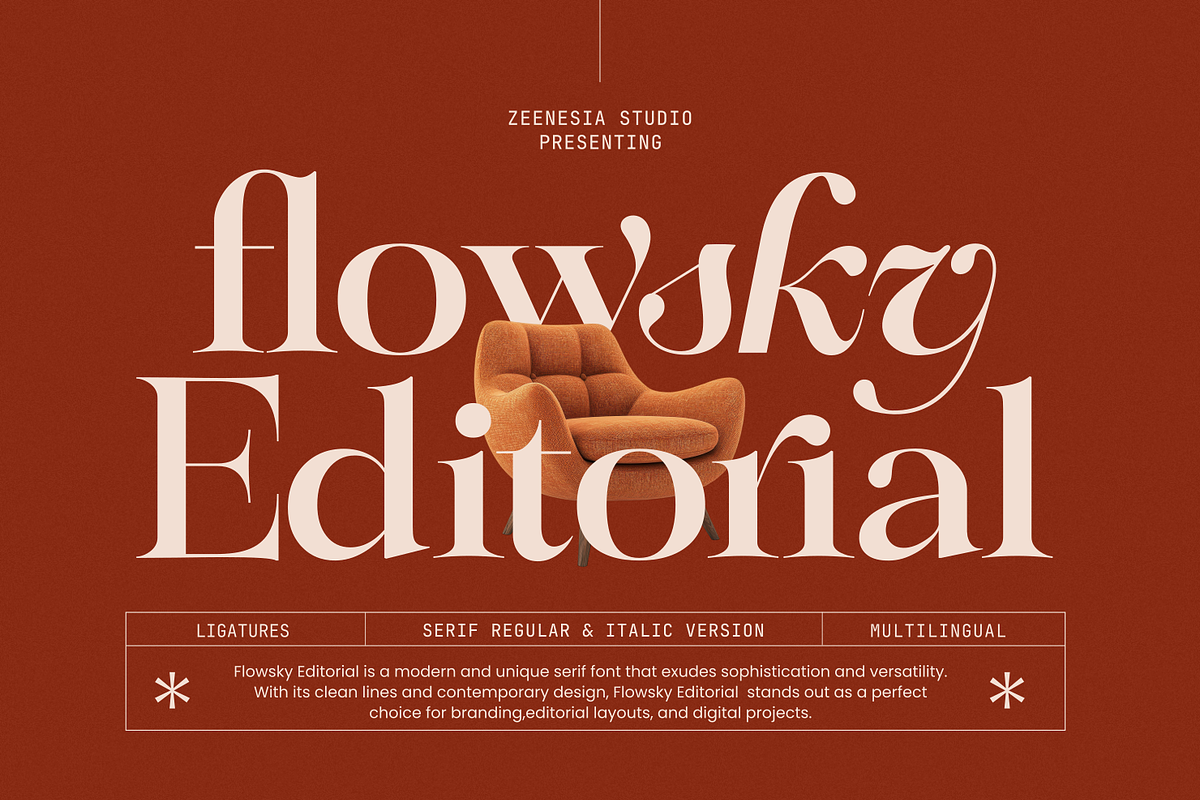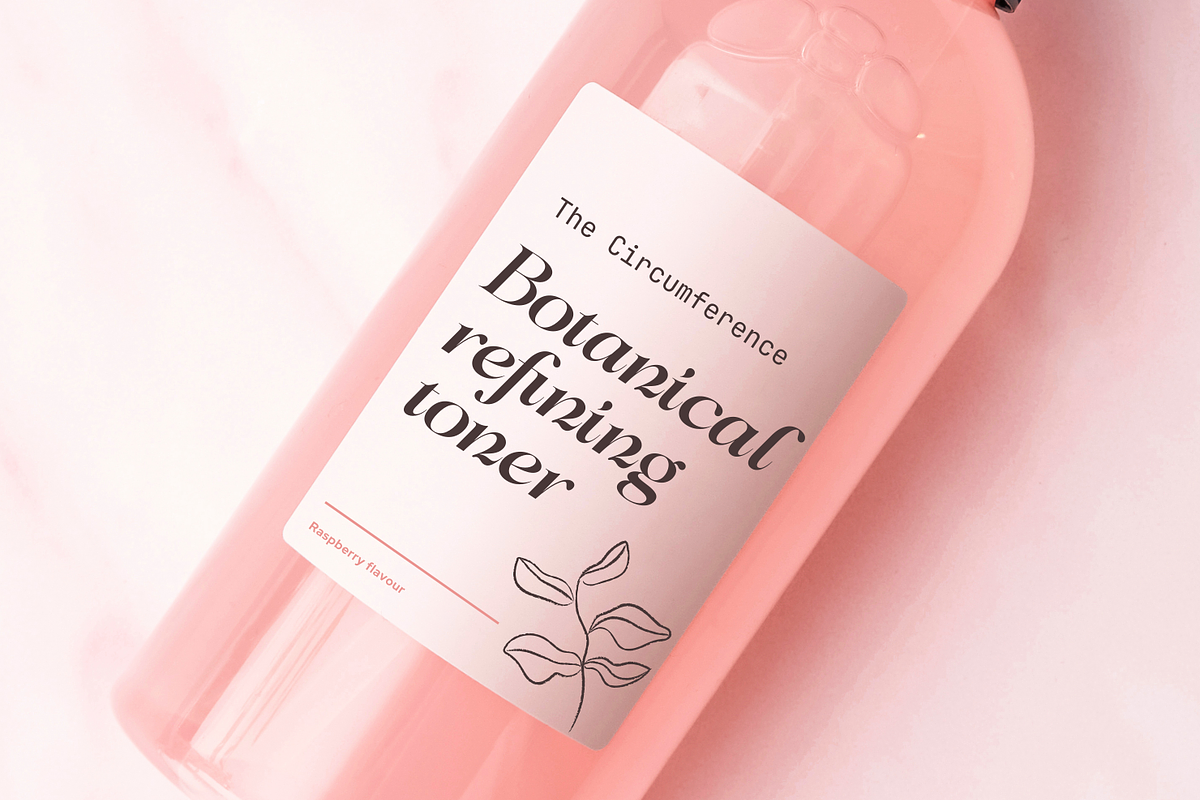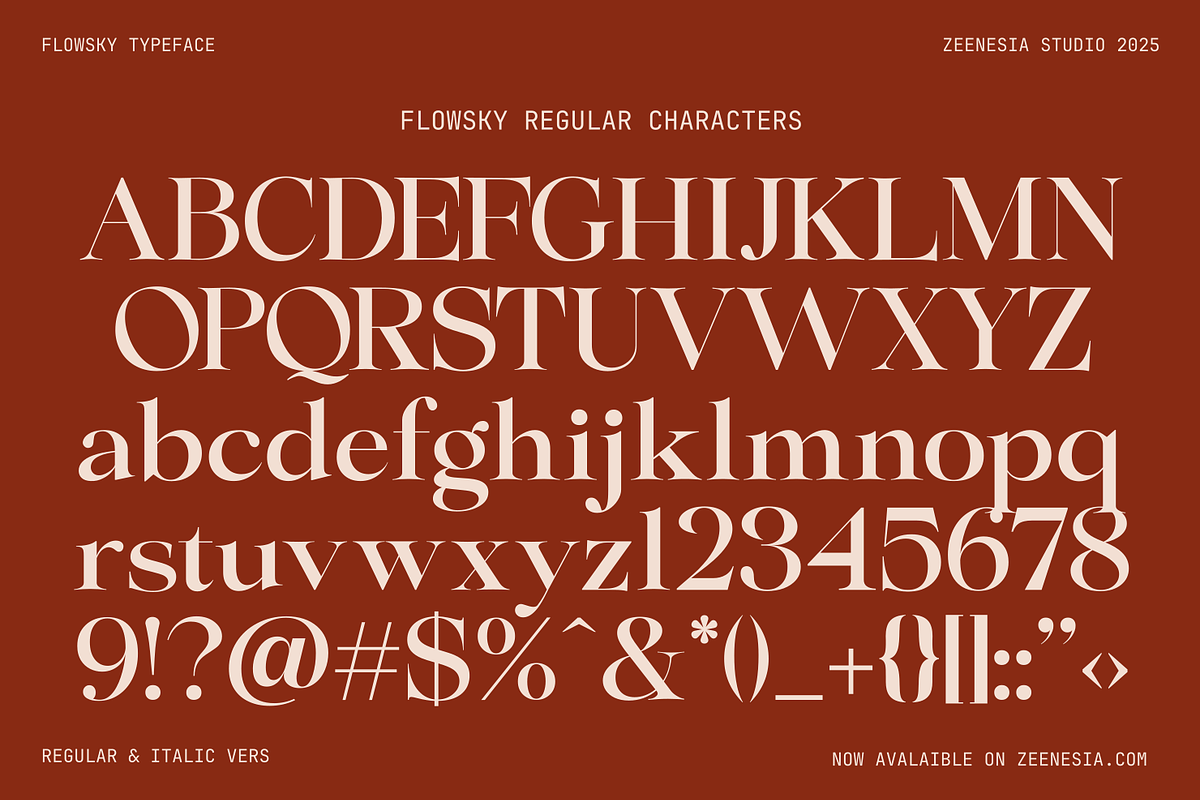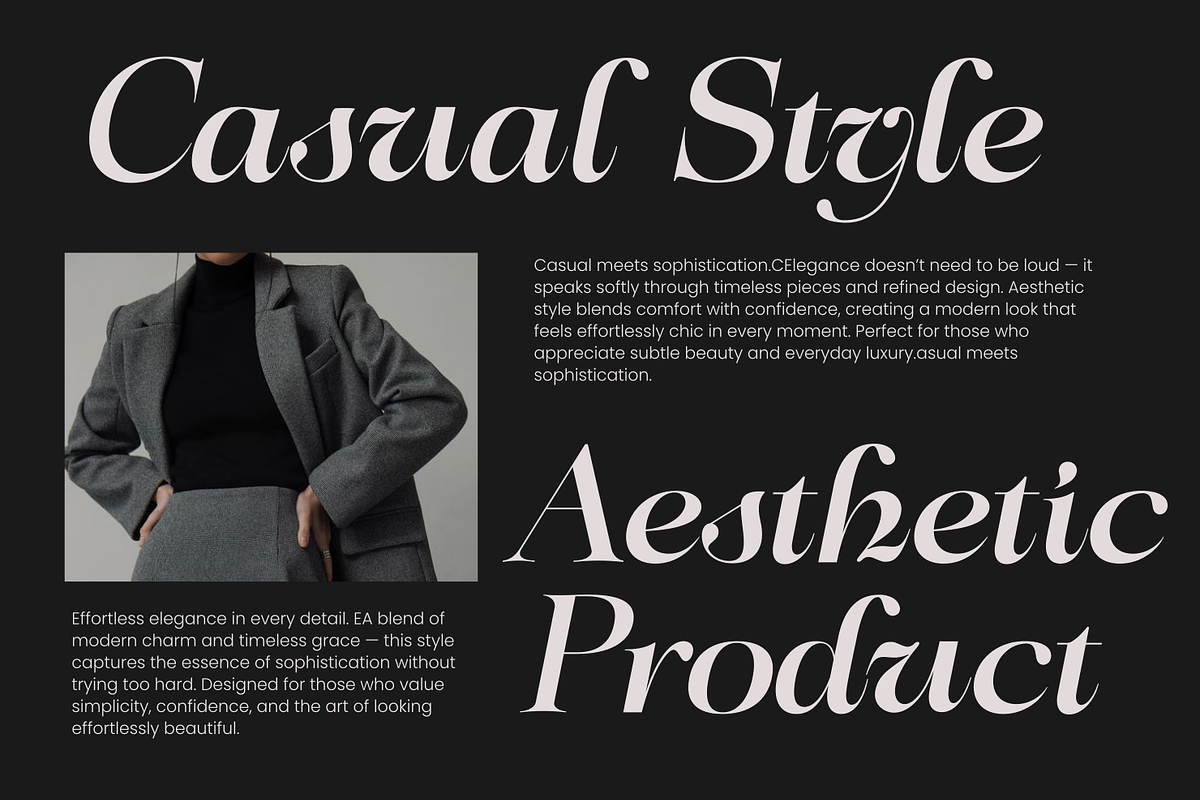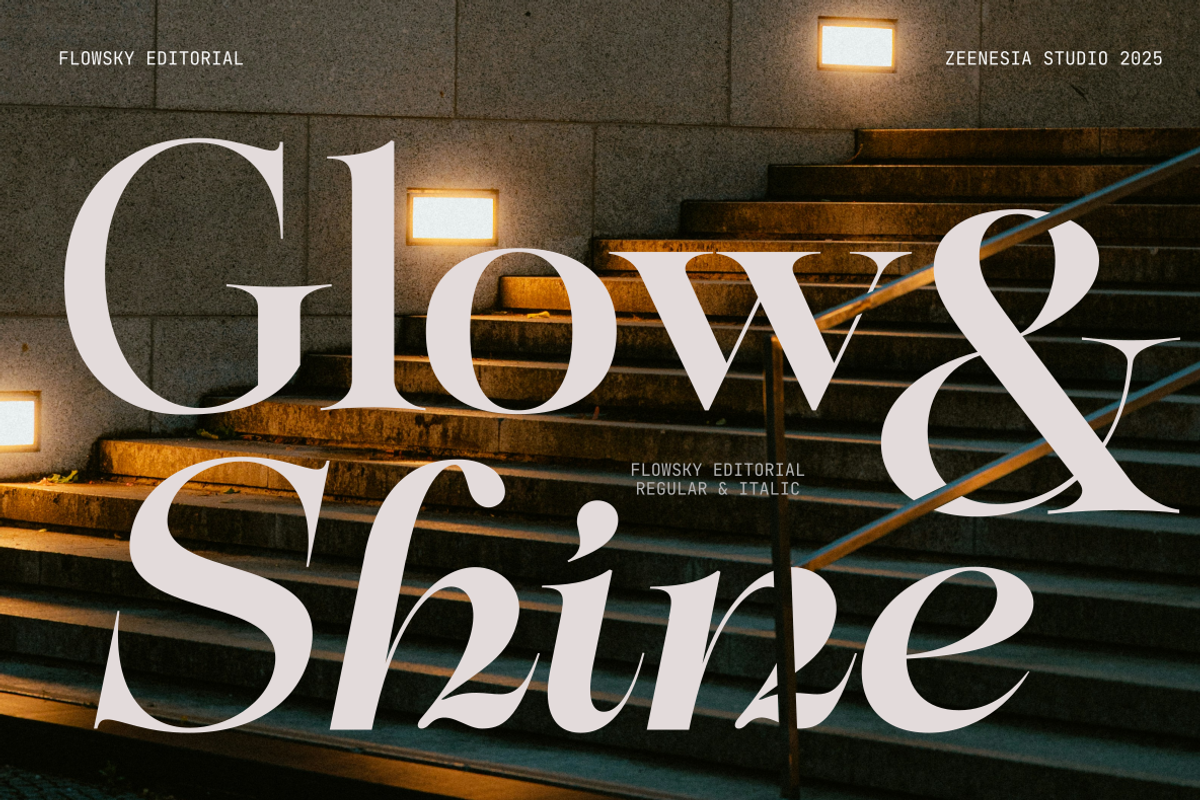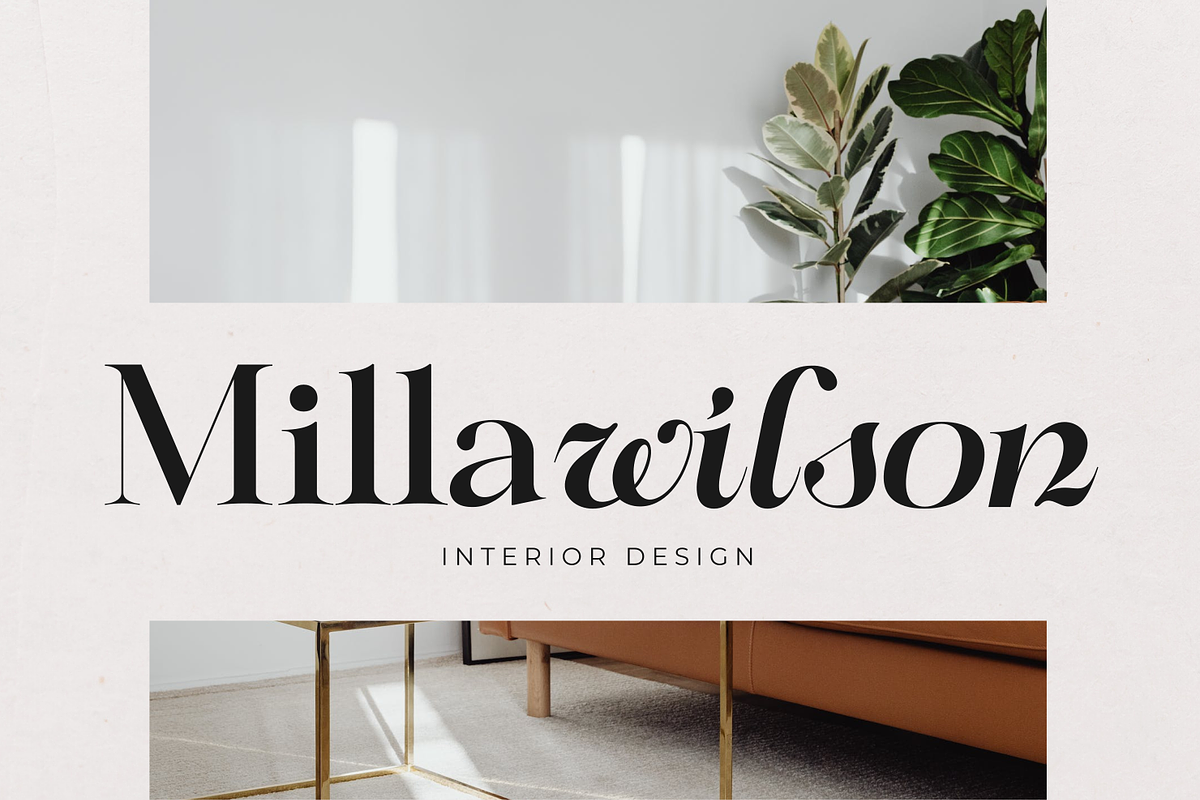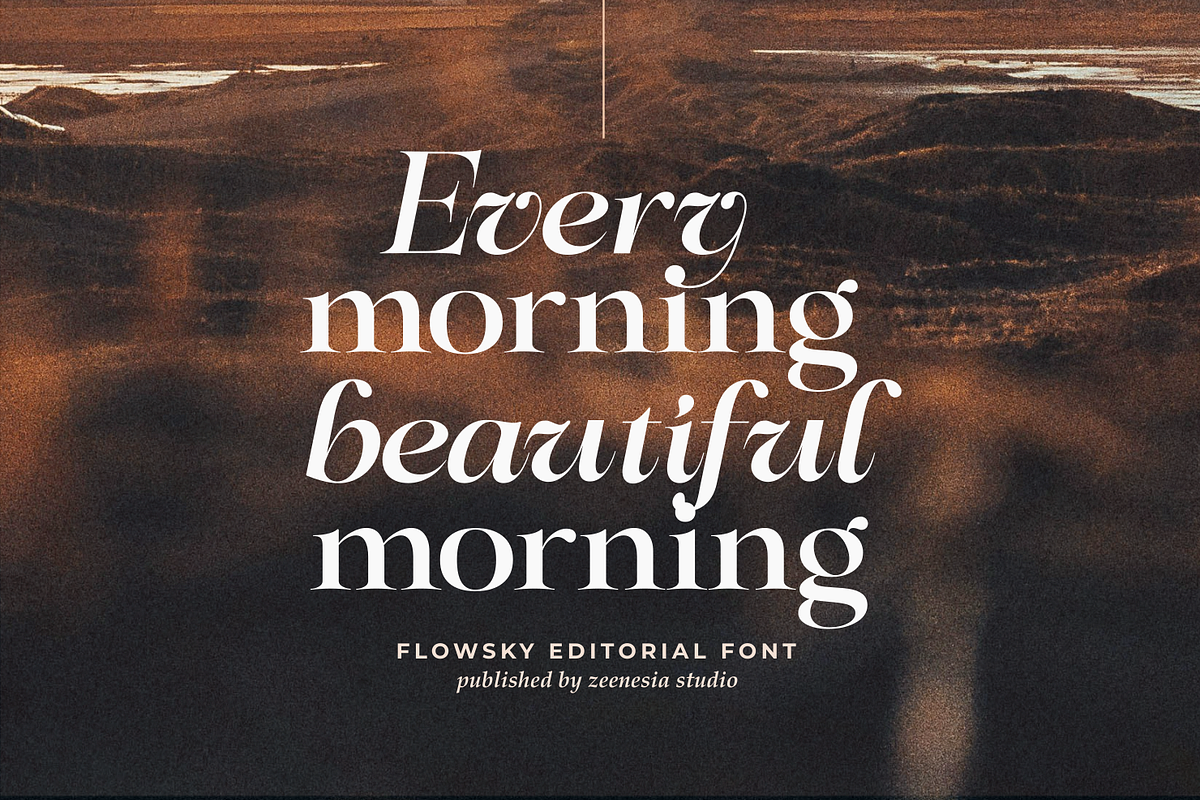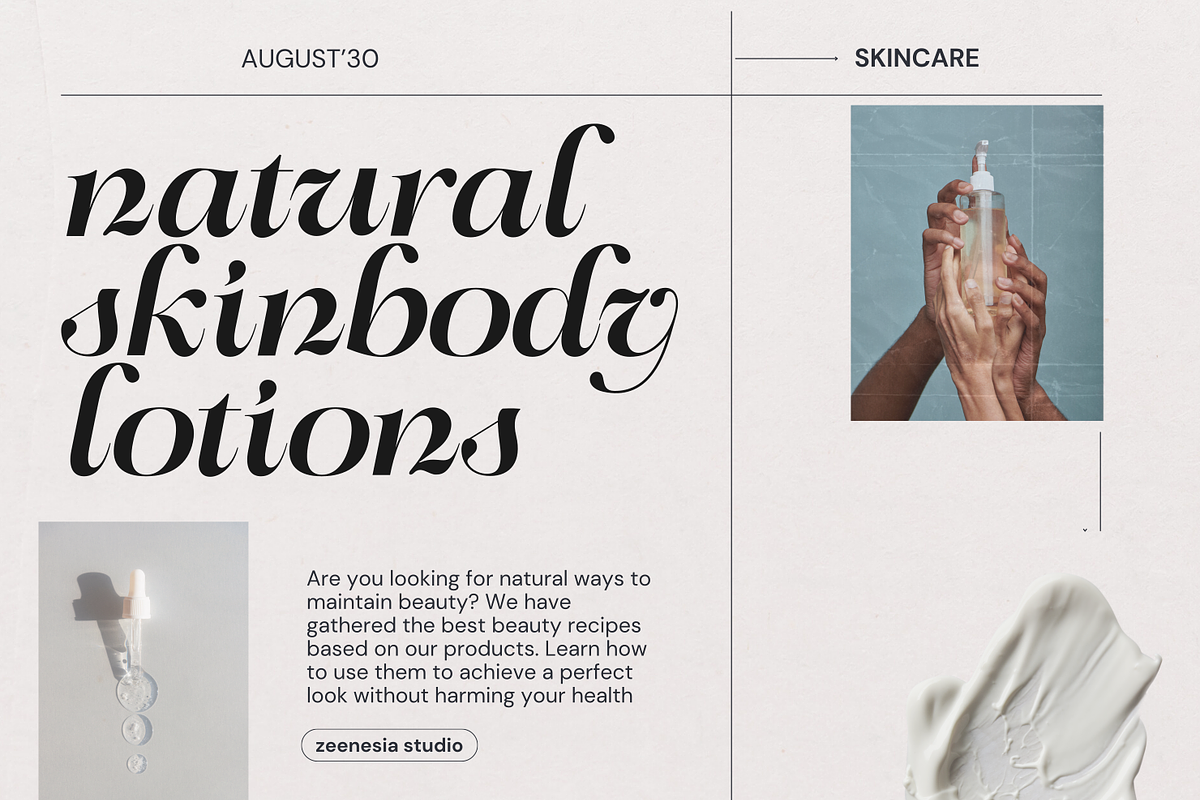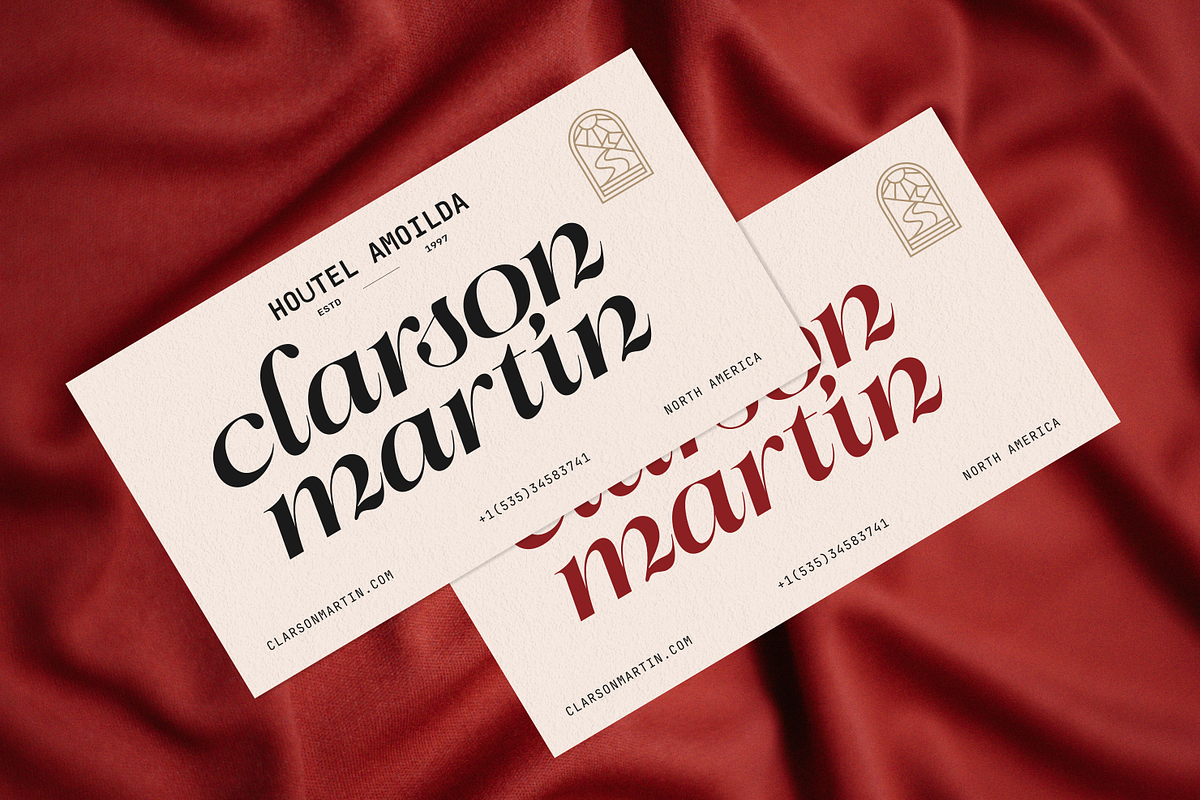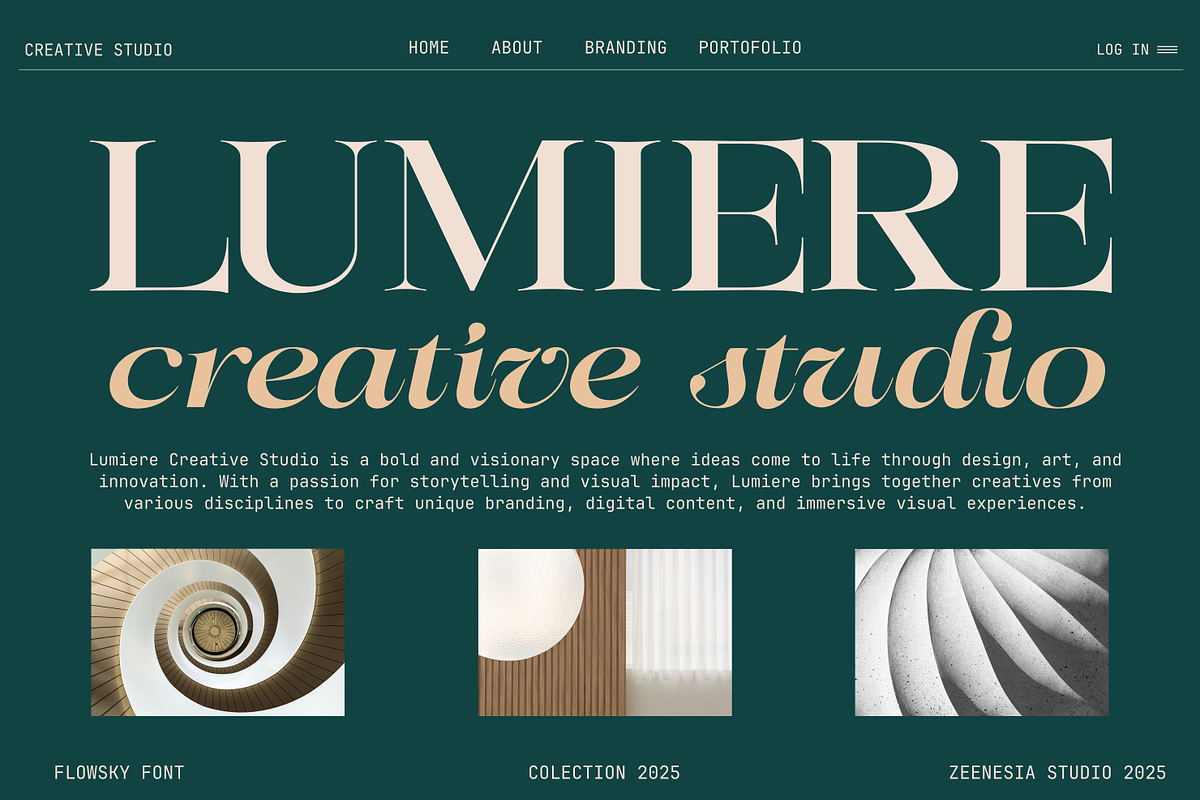
Flowsky Editorial
Flowsky Editorial is a modern serif typeface that blends elegance with contemporary flair. Featuring refined curves, expressive ligatures, and a sophisticated character style, this font is crafted to elevate editorial aesthetics and premium branding. Its clean structure and graceful details make it highly versatile—perfect for magazines, logos, packaging, digital layouts, and creative typographic compositions. Available in Regular and Italic styles, Flowsky Editorial offers strong visual presence while maintaining readability. With multilingual support and thoughtfully designed features, it brings a luxurious, artistic touch to any design project. What’s Included : - Flowsky Editorial (OTF/TTF) - Standard glyphs & Ligature - Multilingual - Web Font - Works on PC & Mac Simple installations We hope you enjoy the font, please feel free to comment if you have any thoughts or feedback. Thanks for purchasing and glad to help you!